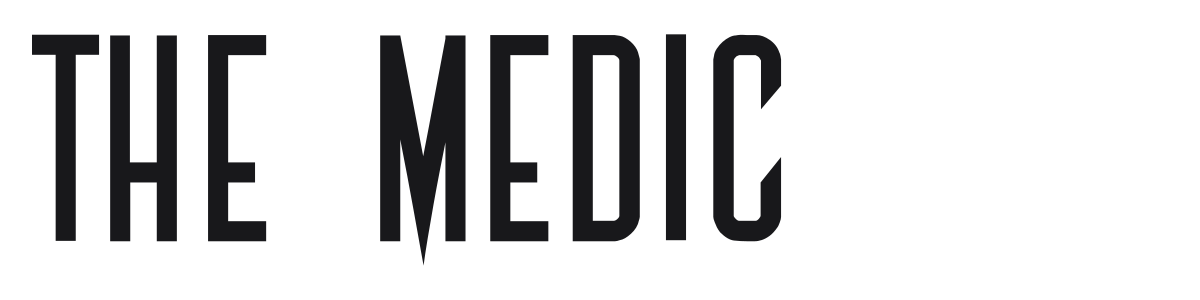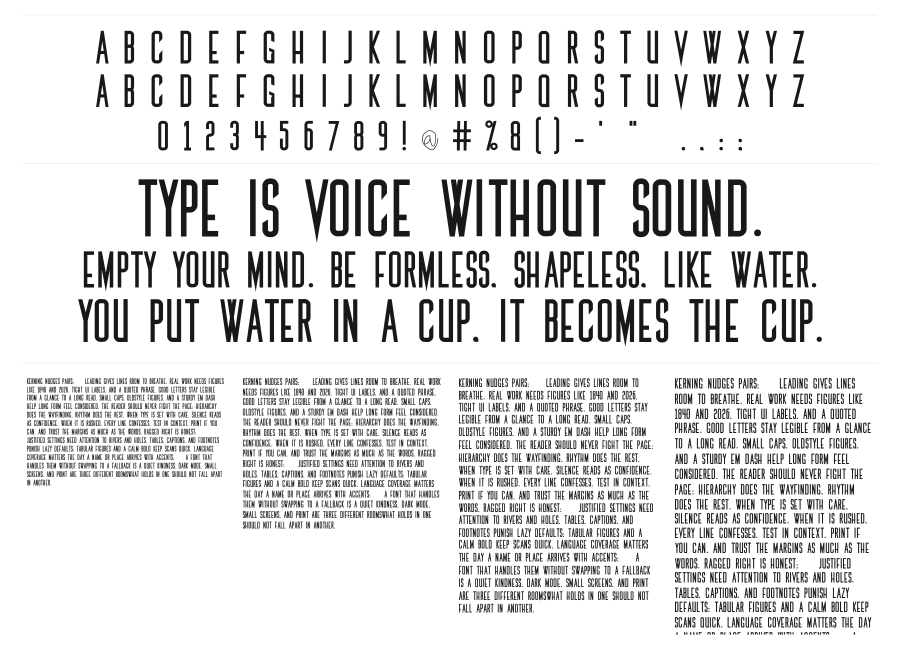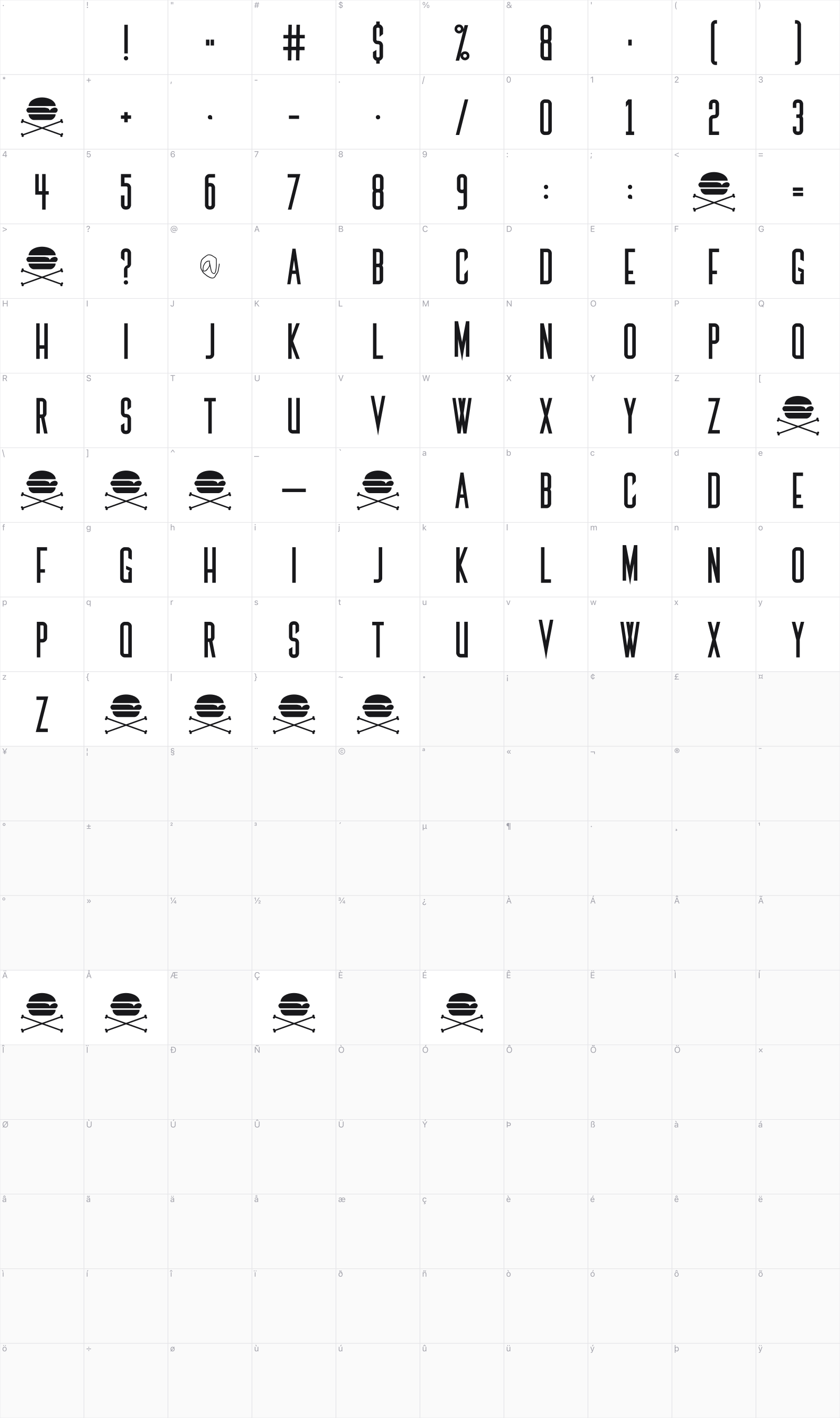
The Medic
The Medic is a boldly condensed sans-serif with dramatic vertical proportions and sharp, tapered terminals that give it an edge beyond a typical grotesque. The blade-like strokes and tight spacing create an intense, almost clinical authority at large sizes. It sits naturally in editorial headlines, poster design, and branding that wants presence without decoration.